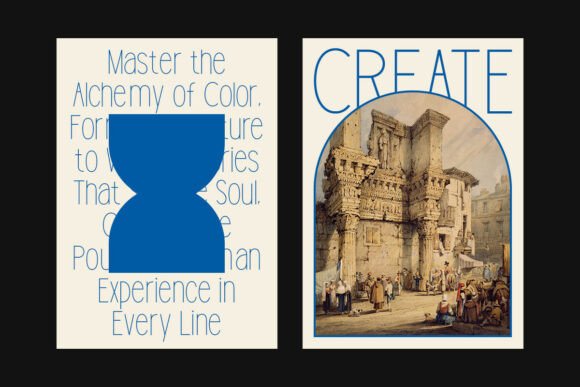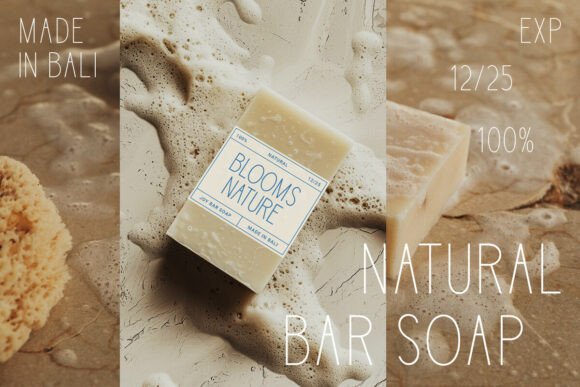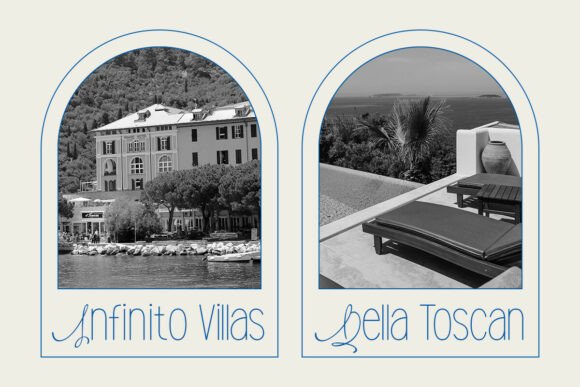
Introduction to Larasita Font Font
Fonts play a crucial role in design, and the Larasita Font font is a typeface that brings both character and versatility to any project. Whether you’re working on a branding project, a website, or a print design, the Larasita Font font offers a unique style that can elevate your work.
Larasita is an elegant artistic sans-serif font that blends modern simplicity with graceful, expressive curves.
Designed with clean strokes and refined proportions, this typeface delivers a sophisticated yet approachable visual character Its subtle artistic details add personality while maintaining clarity and balance, making it suitable for both display and refined branding applications.
Key Features of Larasita Font Font
Why Choose Larasita Font Font?
The Larasita Font font is more than just a typeface – it’s a design tool that helps you communicate your message with style and clarity. Its unique character set and versatile design make it suitable for a wide range of applications, from elegant invitations to bold headlines.
With its carefully crafted letterforms and balanced proportions, the Larasita Font font ensures readability and visual appeal across all mediums.
What makes Larasita Font font special?
The Larasita Font font stands out with its unique design, exceptional readability, and versatility across various design applications.